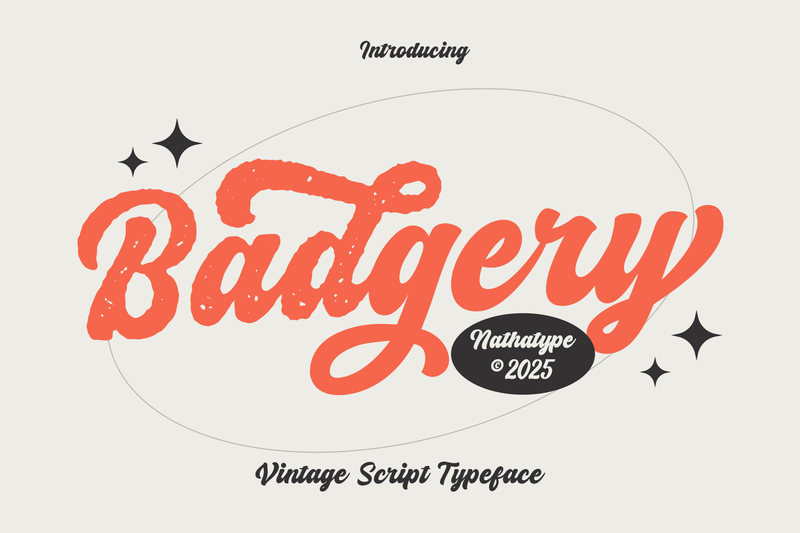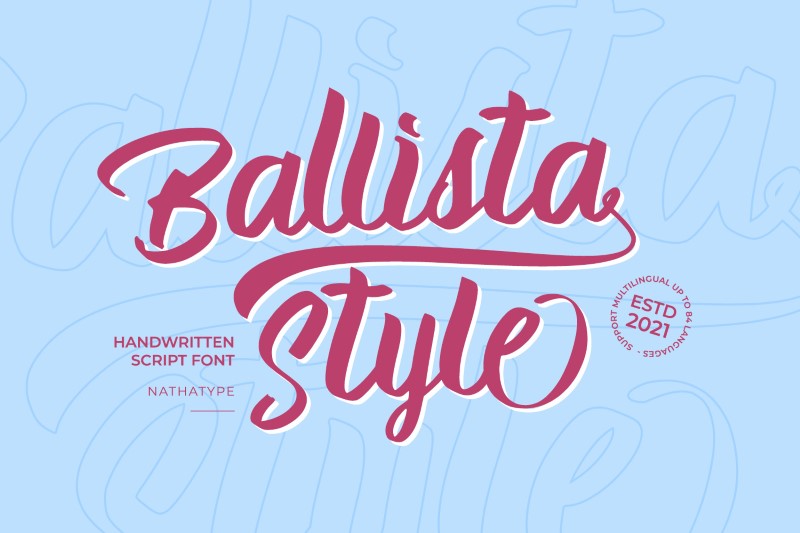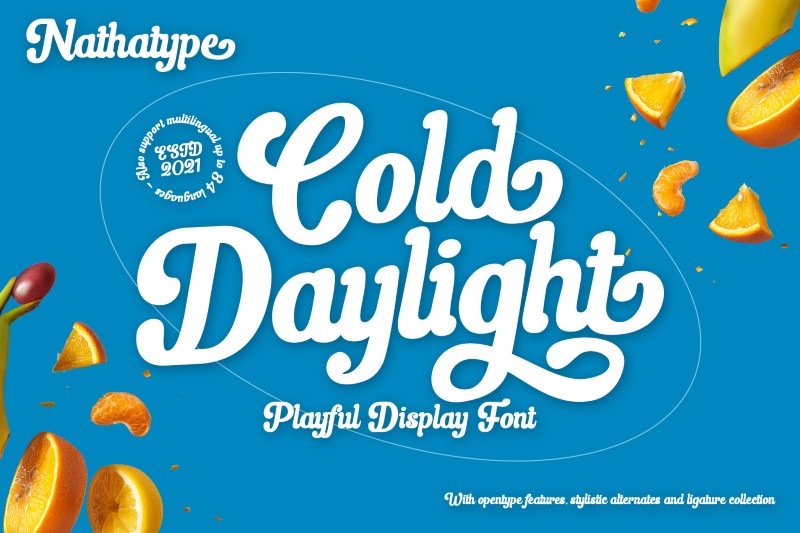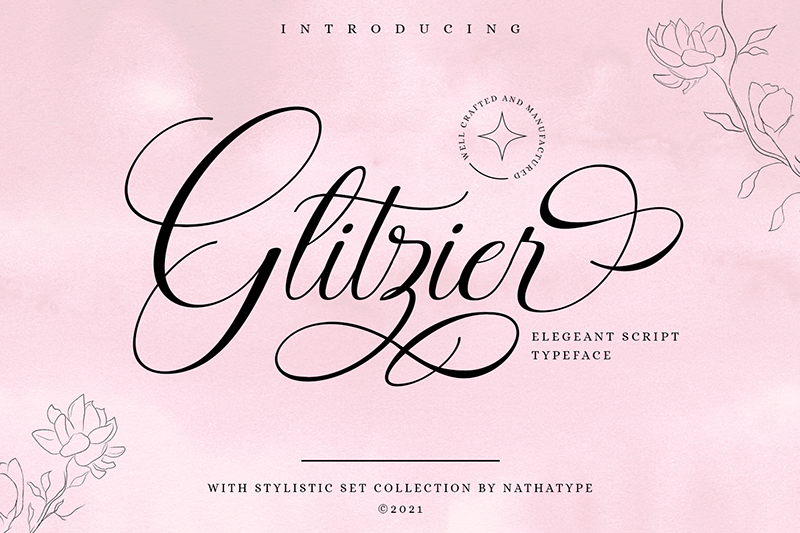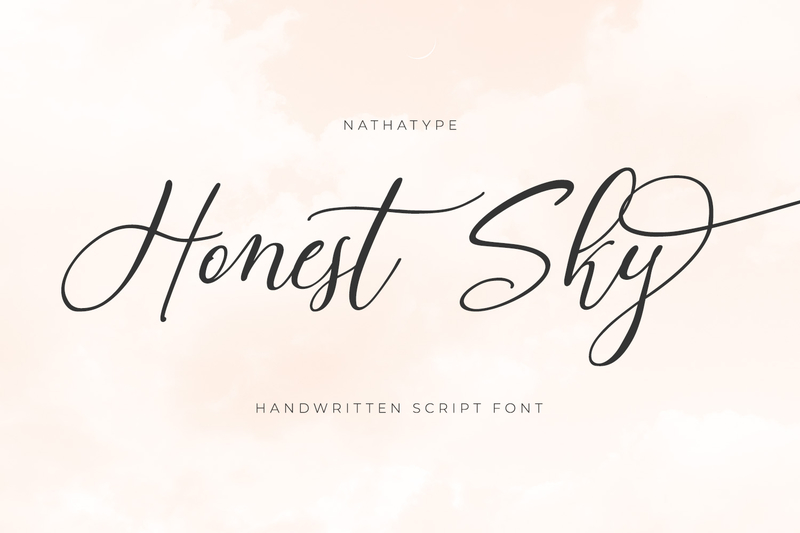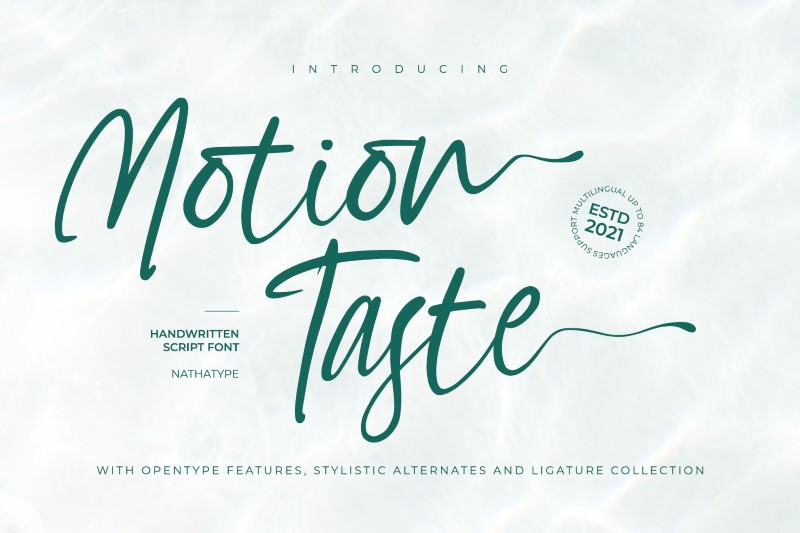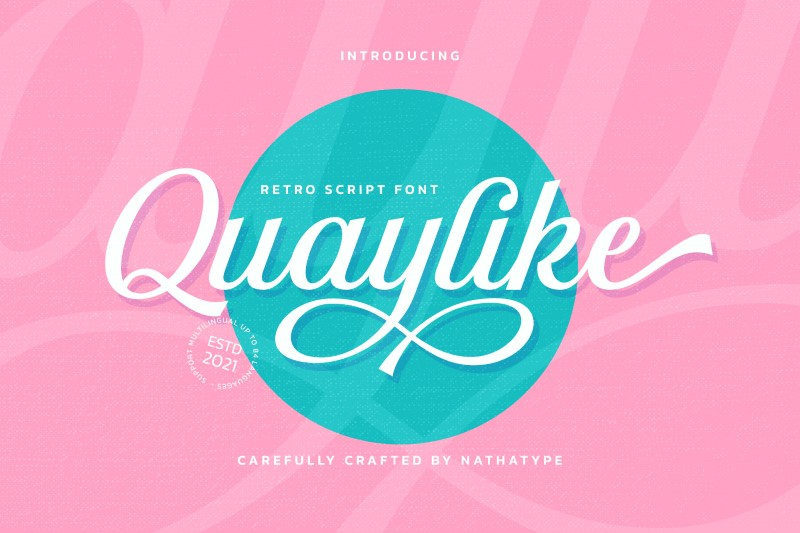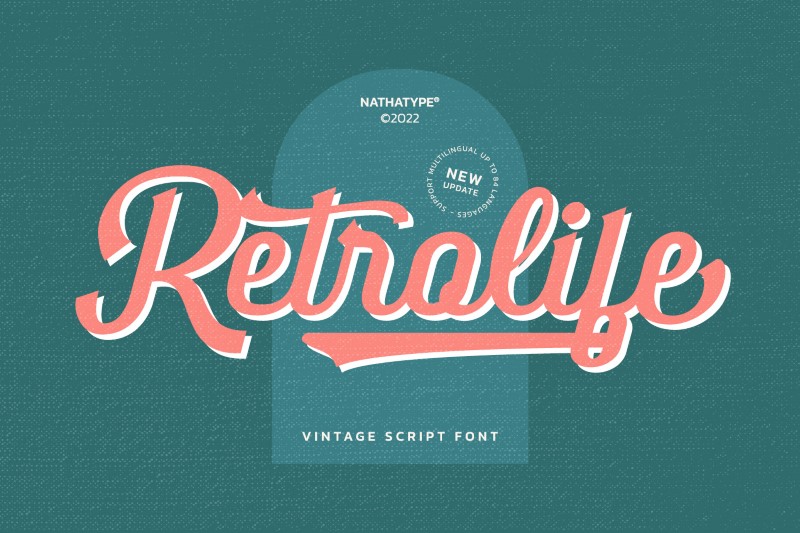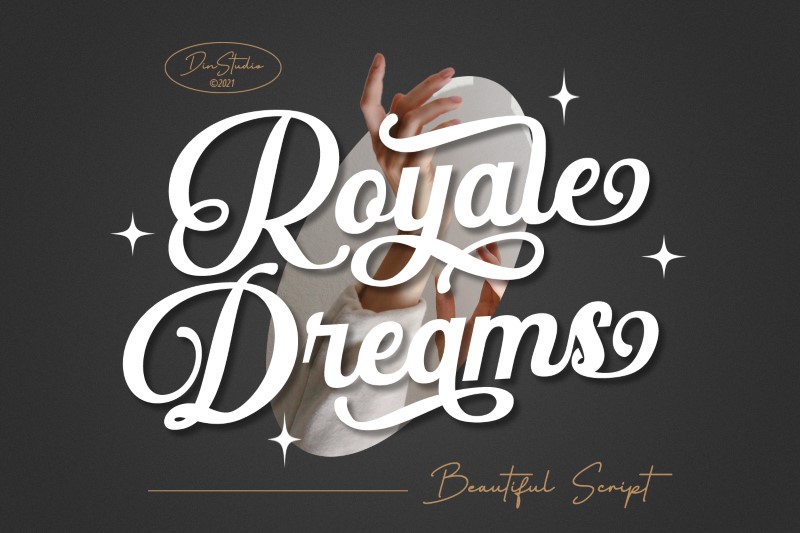
13 Stunning Calligraphic Vintage Fonts for Your Elegant Design
In the classic typography world, calligraphic vintage fonts have a charm that’s difficult to match. This font style offers the beauty of flowing calligraphy, combined with a classic and elegant vintage feel, complete with flowing swashes that add an artistic touch to every word.
It’s no wonder that many designers use vintage calligraphic fonts to create an elegant, romantic, and classy look. Vintage calligraphic fonts can give a classic, timeless look to everything from wedding invitations to logo designs and high-end product packaging.
The uniqueness of calligraphic vintage fonts lies in their detail. Every letter usually has a smooth curve, a natural flowing line, and a swash ornament that enhances the typography’s composition. As a result, the text’s look isn’t only informative but also has a high aesthetic value.
If you are trying to find a font that can give your design a classic feel, here are the 13 most suitable calligraphic vintage fonts that can make it come true.
Quaylike
Quaylike provides a style of calligraphic vintage fonts with an elegant, luxurious, and artistic touch in one visual composition.  Connected letters dominate the letter character with a firm letter structure, making them look characterful and dynamic. Some of the letters also present long swashes, adding a decorative touch typical of calligraphy. This font features ligatures and stylistic sets, making it suitable for logos, wedding invitations, branding, posters, and elegant packaging designs.
Retrolife
The letterform of Retrolife presents a bold stroke with a firm curve and geometric terminal cut, creating a natural, handwritten-like appearance. Additionally, the balanced letter proportion with the flowing line provides an elegant look of calligraphy with a strong decorative touch. It also features bold swashes on several letters, strengthening the distinct retro nuance. These visual details make Retrolife more vibrant and artistic, which can attract attention when used as headlines or display texts.
Royale Dreams
As its name suggests, Royale Dreams stands out among calligraphic vintage fonts by exuding a luxurious and romantic feel through its elegant, captivating style. Its letterforms feature smooth curves with flowing lines, creating a soft and pleasing feel. Some prominent characters, such as the letters R, D, and s, are adorned with swinging swashes and decorative loops, enhancing the look of the words and reinforcing a classic, artistic feel. Equipped with ligatures and stylistic sets, Royale Dreams is perfect for headlines, logos, branding, wedding invitations, and elegant decorative designs.
The Marbler
Inspired by the 60s typography style, The Marbler presents a retro script font with a vintage feel but still has an elegant feel. The letterform provides various calligraphy style variations with a firm yet flowing line and a natural-like letter connection. Some characters also have decorative swashes and a swinging final stroke, reinforcing the retro feel of the classic era.
The Marbler also features ligatures, stylistic sets, and swashes for a more engaging typographic look. Therefore, this font is suitable for vintage-style logos, posters, and branding, especially at larger text sizes to highlight the letter details.
The Poisoned Heart
The Poisoned Heart brings an elegant vintage feel through its style of calligraphic vintage fonts with artistic retro script characters. The letterforms feature natural line strokes that resemble calligraphy with soft, flowing curves. Some characters, like the letters P, H, and t stand out with elongated swashes and decorative curves that beautify the appearance of the words. In addition, The Poisoned Heart has 76 alternates and 10 ligatures, providing a wide variety of typographic displays. This font is suitable for wedding invitation designs, greeting cards, certificates, and various design projects that emphasize the calligraphy style.
Vintage Bridge
If you’re looking for an elegant, modern, and stylish design, Vintage Bridge could be the perfect choice. This calligraphic font features a monoline style with smooth, flowing lines, creating a neat and artistic impression. The soft curves and decorative swashes create a classic yet modern feel. Suitable for headlines, invitations, branding, posters, and even social media designs, this font features ligatures, alternates, and stylistic sets, providing various attractive typographic displays.
Vintage Rotter
Vintage Rotter is one of the calligraphic vintage fonts with a monoline touch. It gives an elegant, classic, and professional impression in various design projects. It features alternates and standard ligatures, giving the letter a variation and a more natural letter connection. The decorative swashes in this font add an artistic touch to the letter’s beginning and end, making the design look aesthetic, unique, and characterized. Moreover, the smooth and flowing letterform makes this font suitable for branding, logos, wedding invitations, quotes, and digital and printed needs.